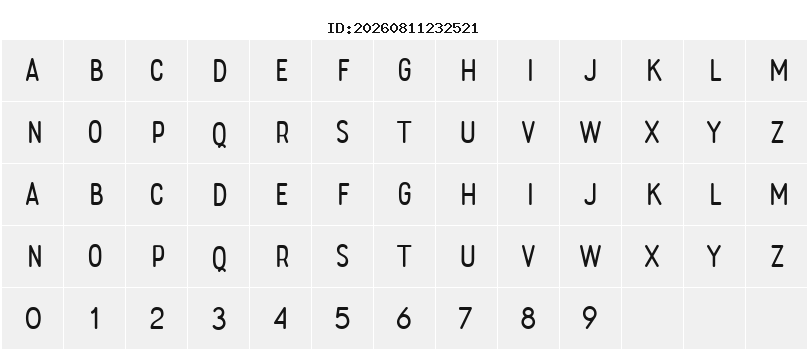
Rolade Free Preview
• Font Name: Rolade Free
• Designer: akufadhl
About Rolade Free.ttf
Rolade Free.ttf is a modern, elegant sans-serif font designed for ultimate readability and visual harmony. Perfect for branding, headlines, web design, and print materials.